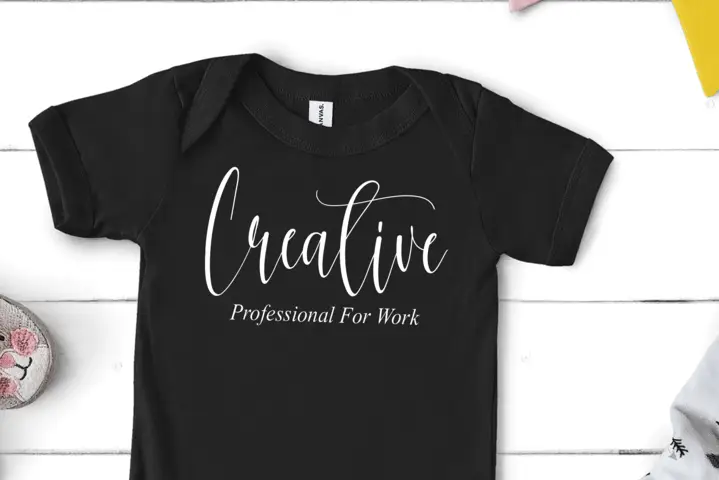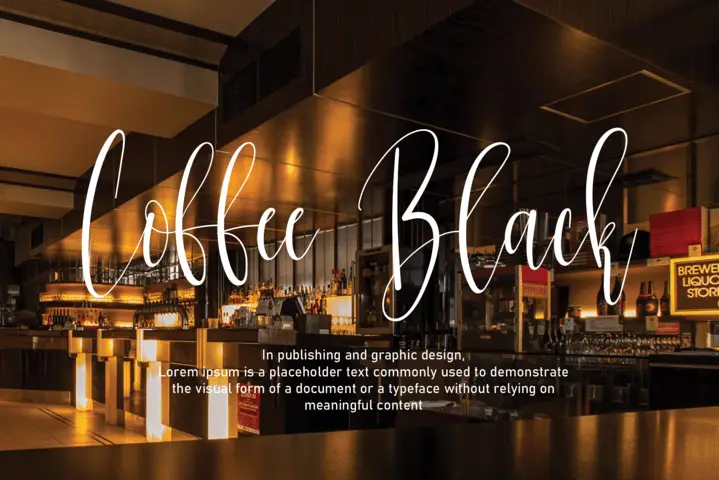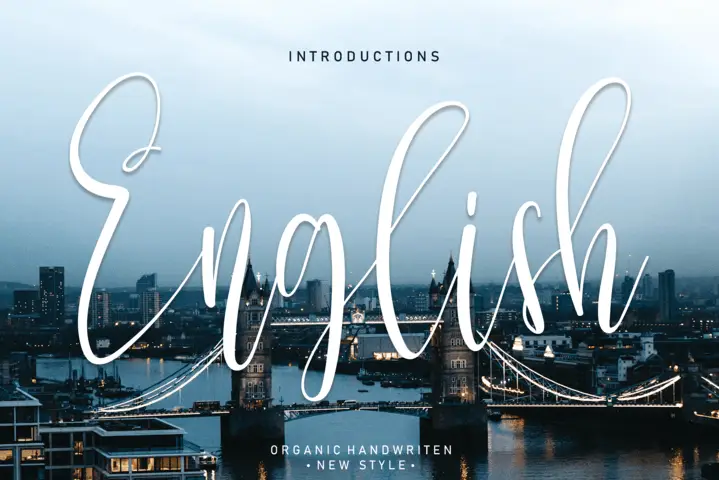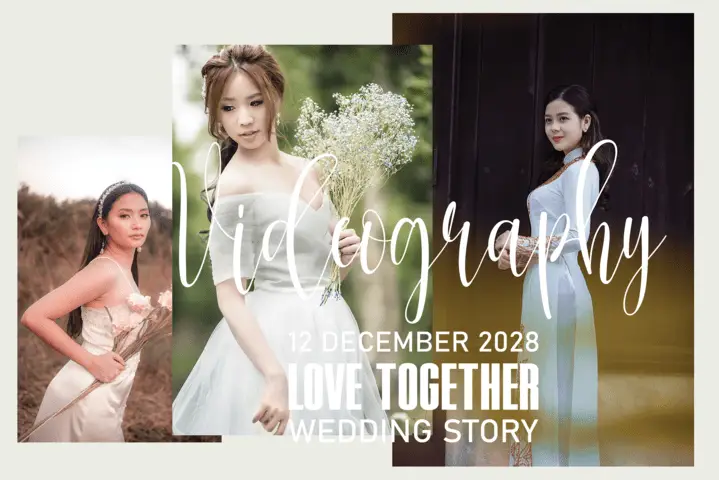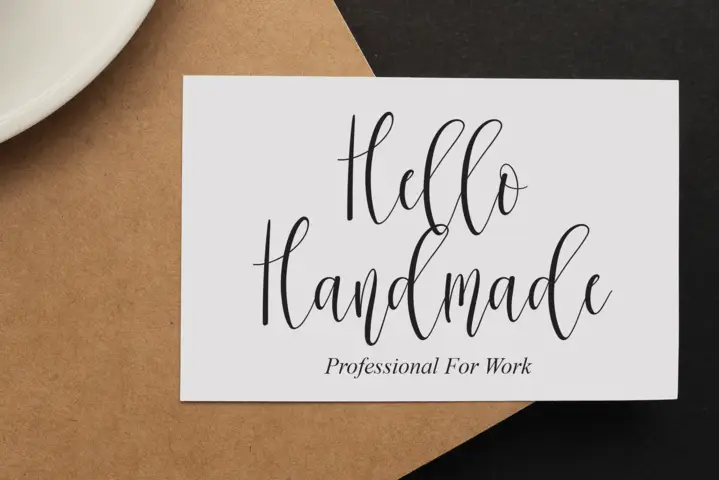
English Script Font
The English Script Font is a beautifully crafted typeface that captures the elegance of traditional calligraphy. With its flowing curves and artistic flair, this font is perfect for a variety of design projects, including branding, invitations, and print materials.
• Stylish script design
• Easy to read at various sizes
• Character Set: Uppercase, lowercase, numerals, punctuation
• Ideal for wedding invitations and greeting cards
• Great for logo design and branding projects
• Use in digital media, such as websites and social media graphics